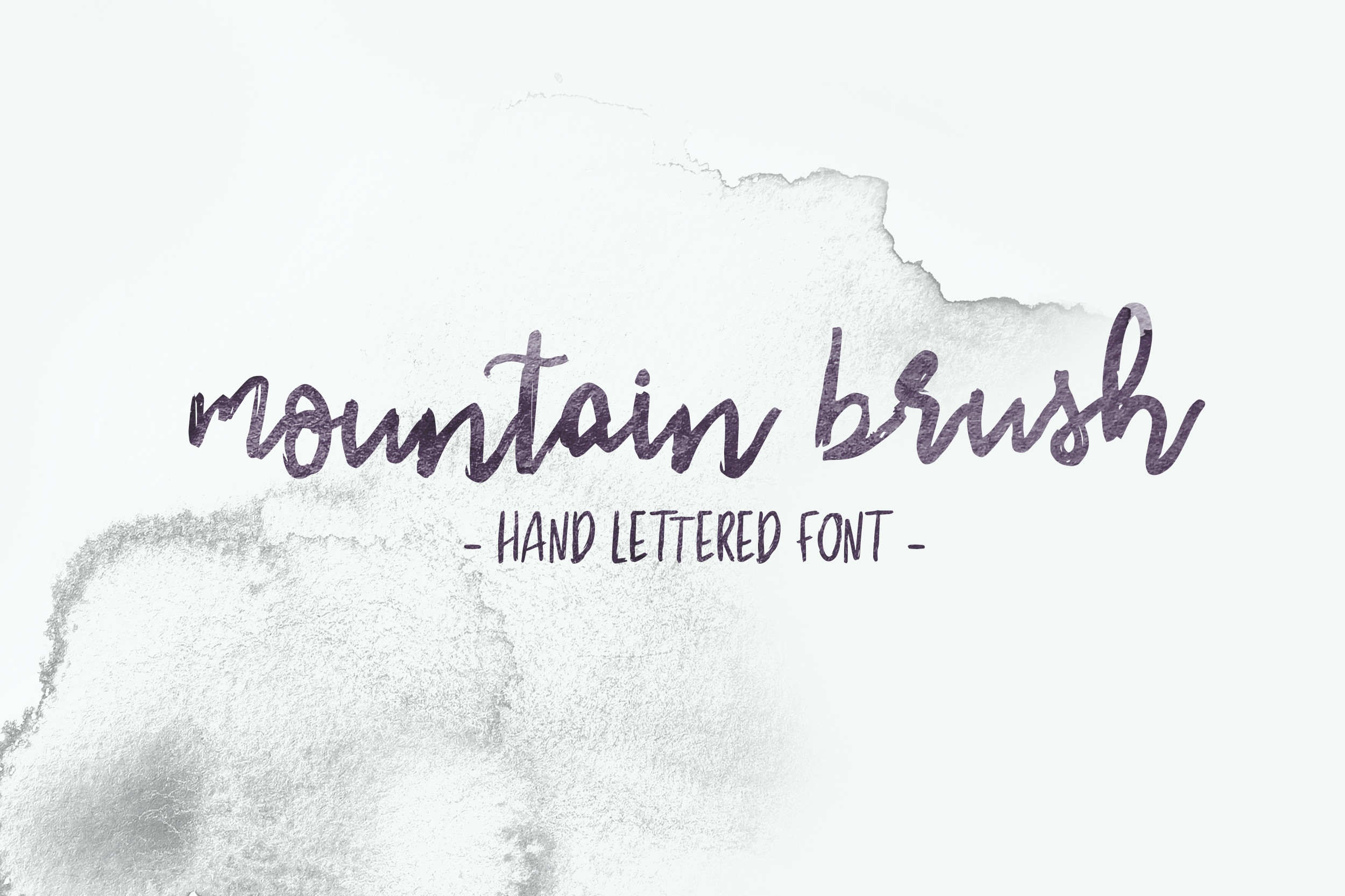
Mountain Brush Font
Super versatile handwritten brush font! Features realistic rough edges for a textured brush effect and perfect connections between each letter for a scrawling script appearance. Handwritten cursive font with a bit of an adventure flare that's neither particularly feminine or masculine. Thick strokes result in legible text with tons of personality.
- Multiple ligatures ~ for a realistic handwritten appearance
- All punctuation
- Special characters
- Single weight